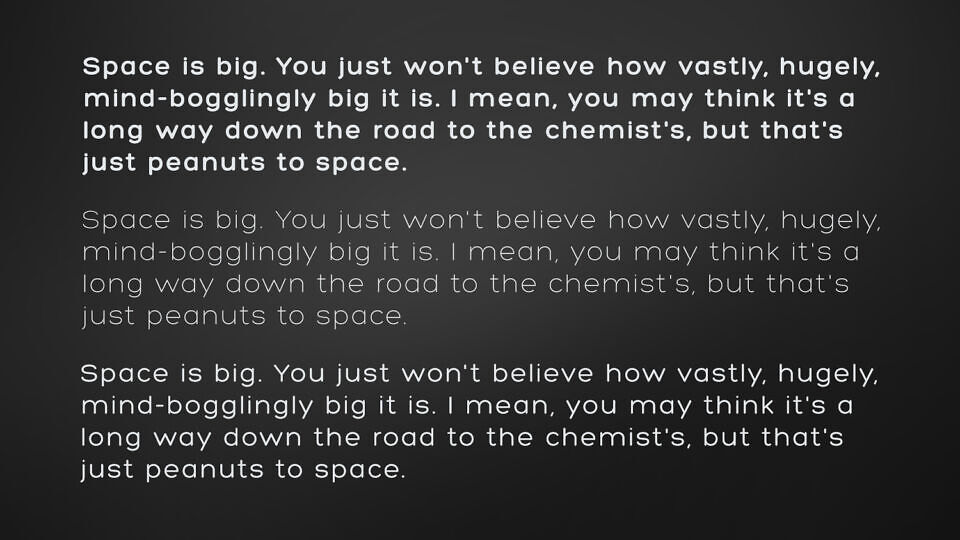
Hero Font
The Hero Font Family is a free typeface created by Fontfabric applicable for any type of graphic design, be it web, print, motion graphics etc and perfect for t-shirts and other items like posters, logos.
3 Hero Font Styles FREE fonts available: Hero Regular; Hero Light; Hero Bold.